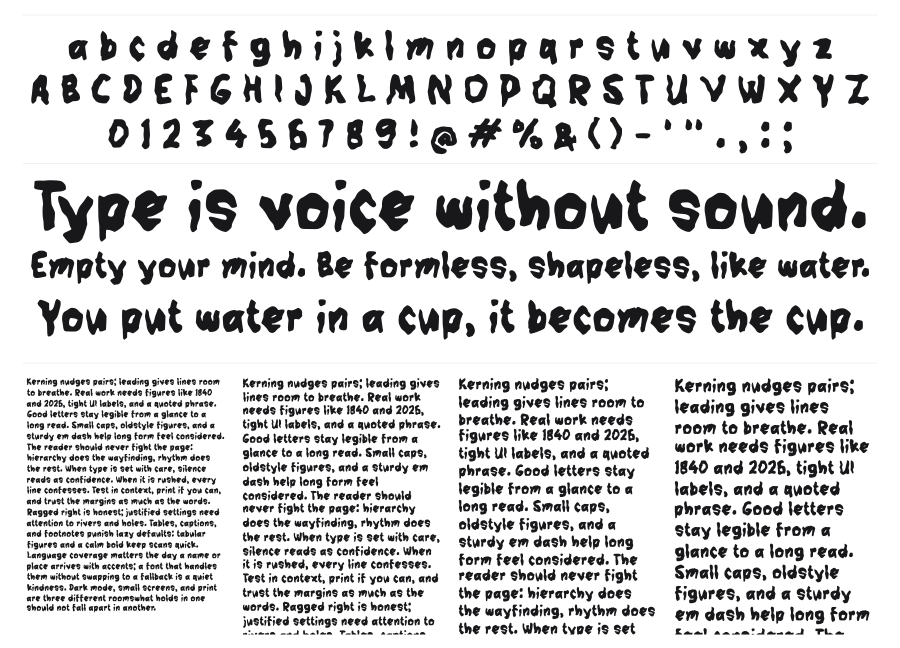
Ubastone
Ubastone is a heavy, hand-drawn display font with thick, wobbly strokes and an intentionally imperfect construction. Every character feels like it was dashed off with a fat marker, giving the type a raw, comic-book energy. It works well for headlines, packaging, and anywhere a design needs personality over polish.